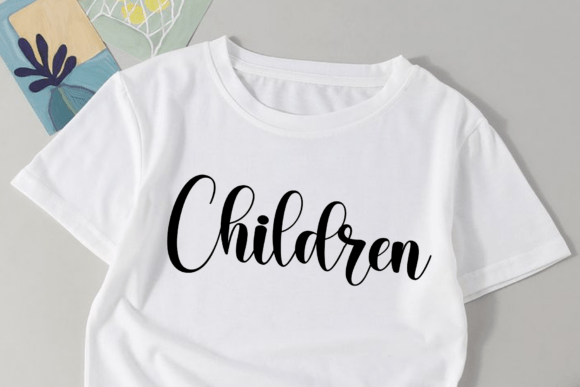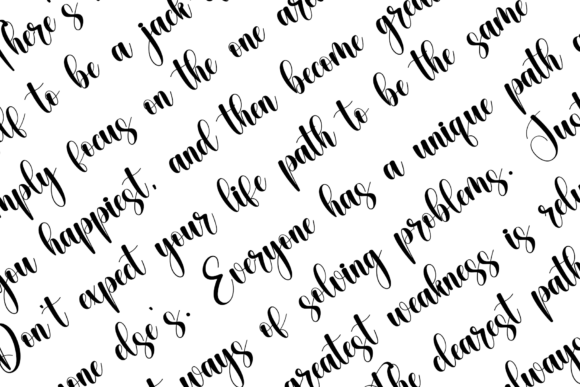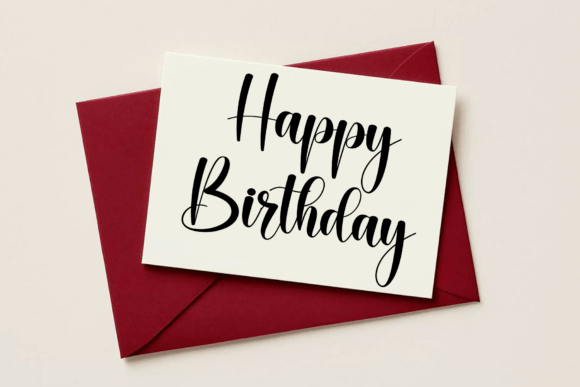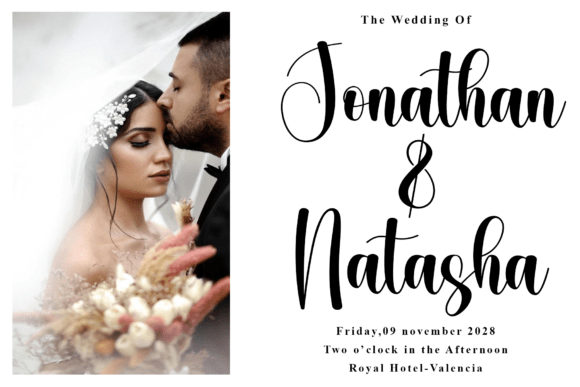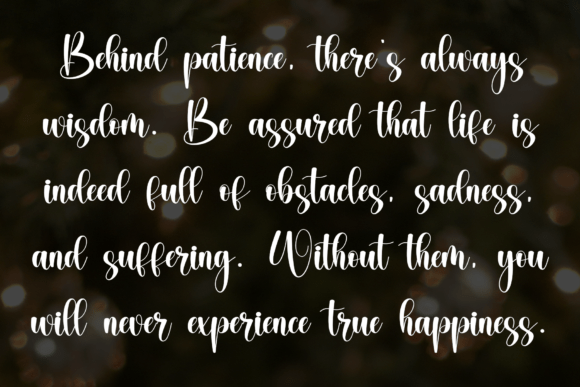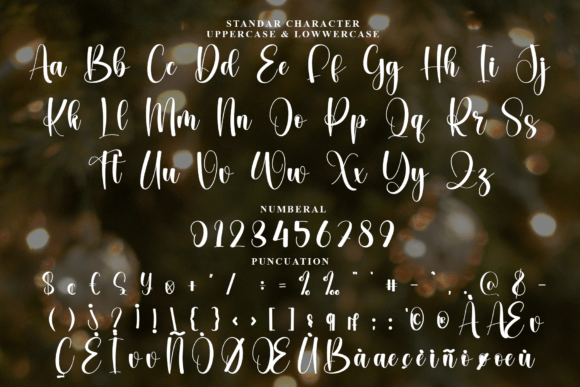
Introducing Christmas Golden Font: A Luxurious Handwritten Script Font for the Holiday Season
Are you looking for a font that embodies the magic and wonder of the holiday season? Look no further than Christmas Golden Font, a luxurious handwritten script font that combines calligraphic elegance with whimsical charm. This stunning font is perfect for designers and crafters seeking to add a touch of sophistication and festivity to their projects.
The Essence of Christmas Golden Font
Christmas Golden Font is a masterpiece of typographic design, boasting flowing swashes, delicate ligatures, and refined letterforms that evoke a sense of seasonal enchantment. Its high-contrast strokes and fluid curves bring a romantic, decorative flair to any design, making it ideal for a wide range of applications, from holiday cards and wedding invitations to premium packaging, branding, and editorial headlines.
Key Features of Christmas Golden Font
- Luxurious Handwritten Script: Christmas Golden Font features a beautiful, handwritten script that exudes elegance and sophistication.
- Calligraphic Elegance: The font’s calligraphic flair adds a touch of refinement and poise to any design.
- Whimsical Charm: The font’s whimsical elements bring a playful, festive touch to your projects.
- High-Contrast Strokes: The font’s high-contrast strokes create a sense of drama and visual interest.
- Fluid Curves: The font’s fluid curves add a sense of movement and fluidity to your designs.
Christmas Golden Font is an incredibly versatile font that can be used for a wide range of applications, including:
- Holiday Cards: Create stunning holiday cards that will leave a lasting impression on your loved ones.
- Wedding Invitations: Add a touch of elegance and sophistication to your wedding invitations.
- Premium Packaging: Elevate your brand with luxurious packaging that showcases the beauty of Christmas Golden Font.
- Branding: Use Christmas Golden Font to create a unique and memorable brand identity.
- Editorial Headlines: Add a touch of glamour and sophistication to your editorial headlines.
Why Choose Christmas Golden Font?
So why choose Christmas Golden Font for your next project? Here are just a few reasons:
- Elegance and Sophistication: Christmas Golden Font adds a touch of elegance and sophistication to any design.
- Legibility: Despite its ornate nature, Christmas Golden Font remains highly legible, making it perfect for body text and headlines.
- Versatility: The font’s versatility makes it suitable for a wide range of applications and design styles.
- Emotional Connection: Christmas Golden Font has the power to evoke emotions and create a connection with your audience.